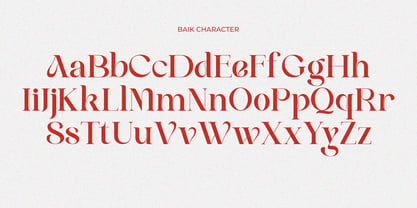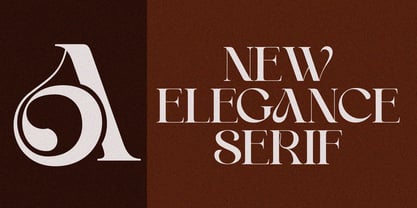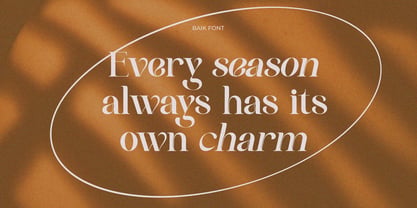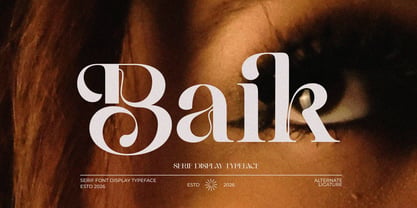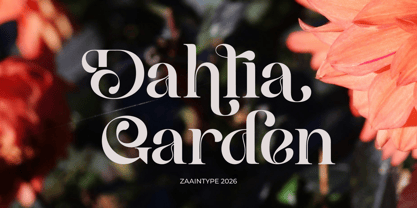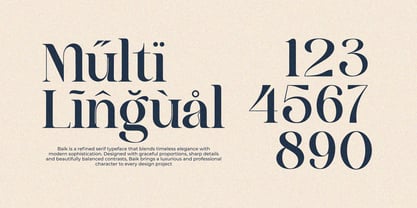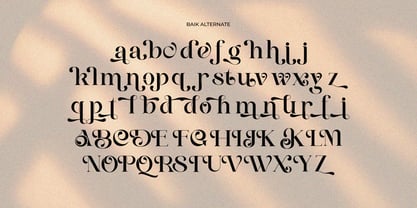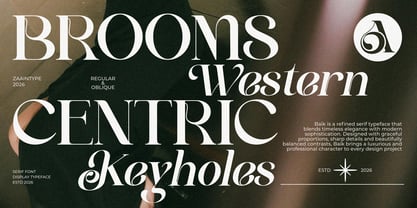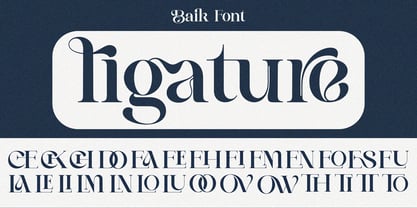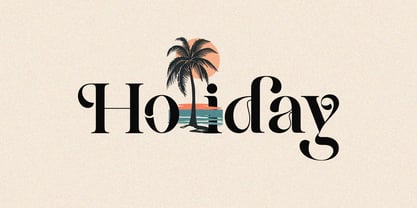
Baik
La famille de polices Baik a été conçue par Ju Naen et publiée par Zaain Type. Baik contient 2 styles et options de package familial. En savoir plus sur cette famille
Baik is a refined serif typeface that blends timeless elegance with modern sophistication. Designed with graceful proportions, sharp details, and beautifully balanced contrasts, Baik brings a luxurious and professional character to every design project.
Perfect for branding, editorial layouts, fashion campaigns, packaging, logos, invitations, and premium marketing materials, Baik delivers excellent readability while maintaining a distinctive and stylish presence. Its classic serif structure is enhanced by contemporary touches, making it versatile for both traditional and modern visual identities.
Whether used for striking headlines or elegant body text, Baik adds a sense of confidence, beauty, and sophistication that helps your message stand out with lasting impact